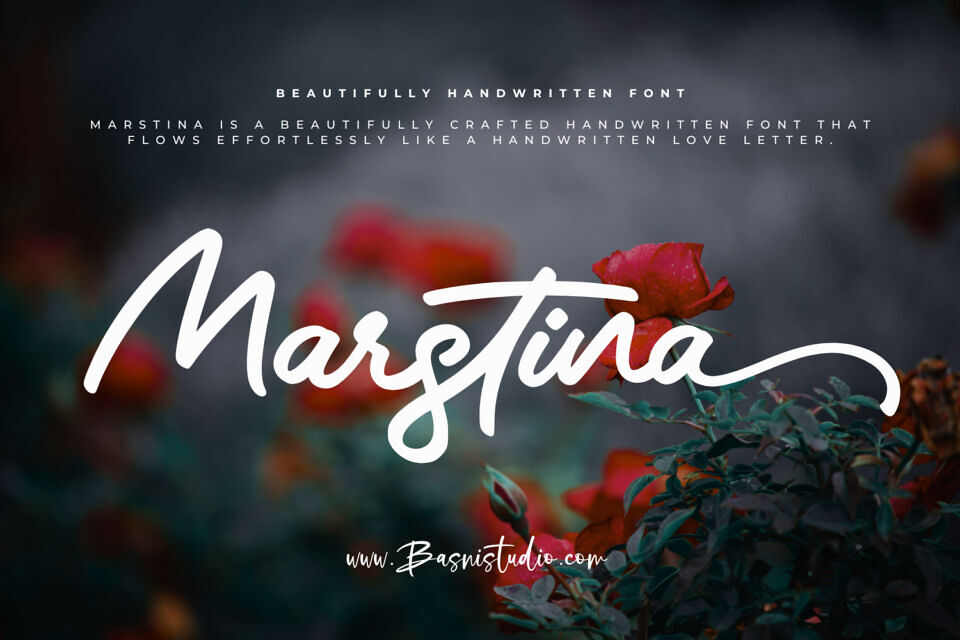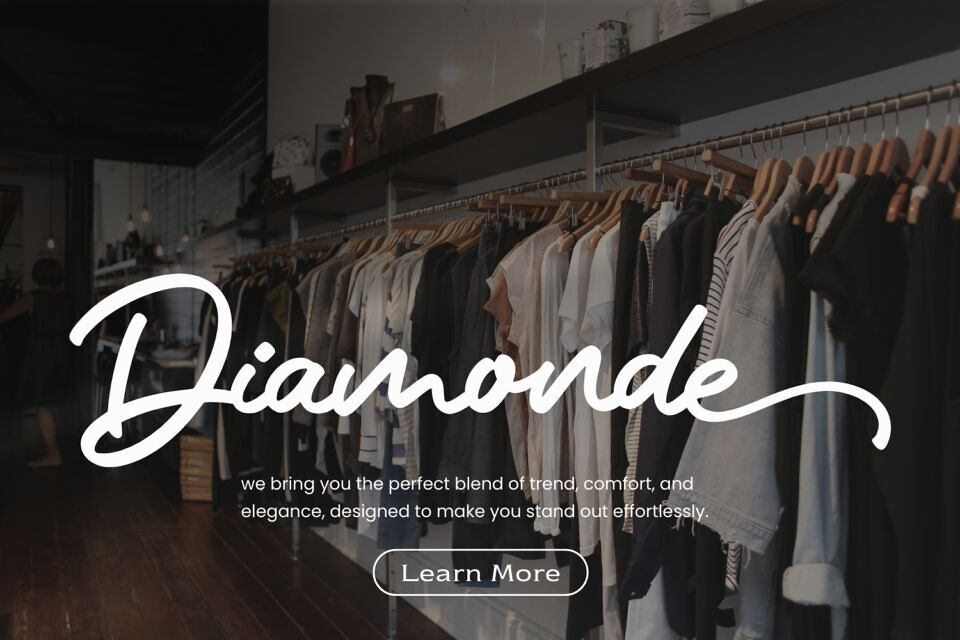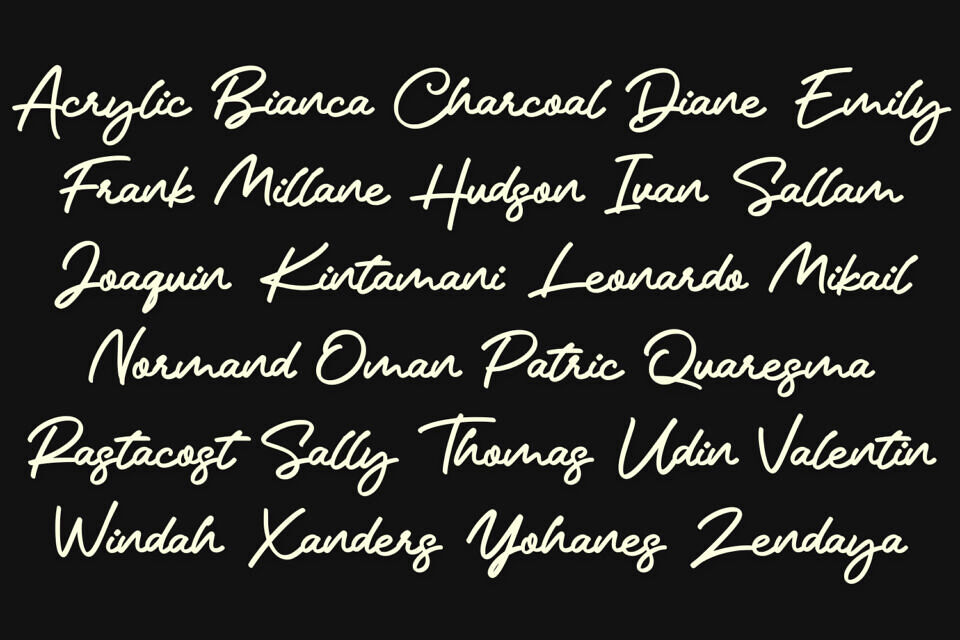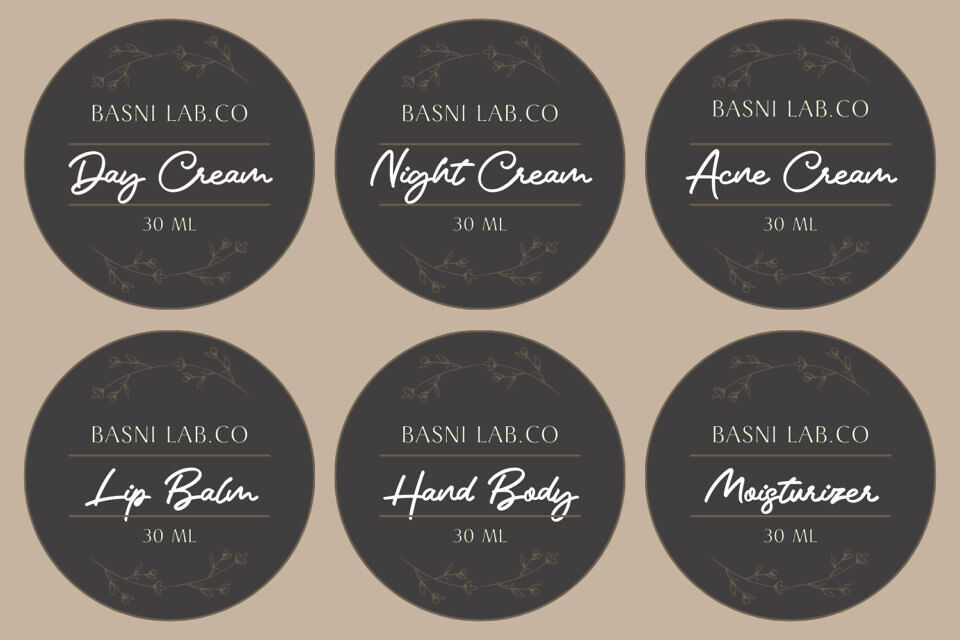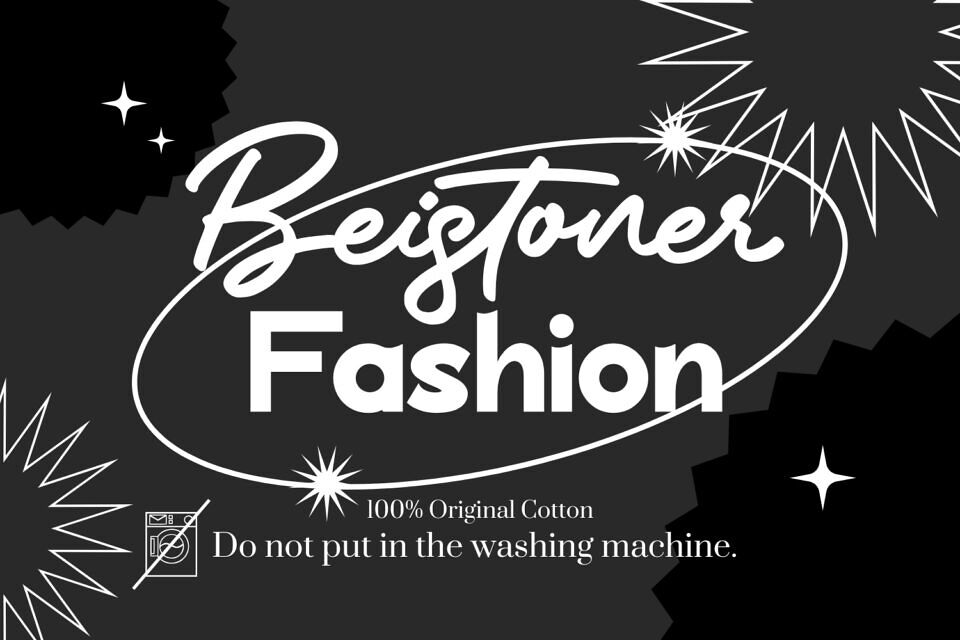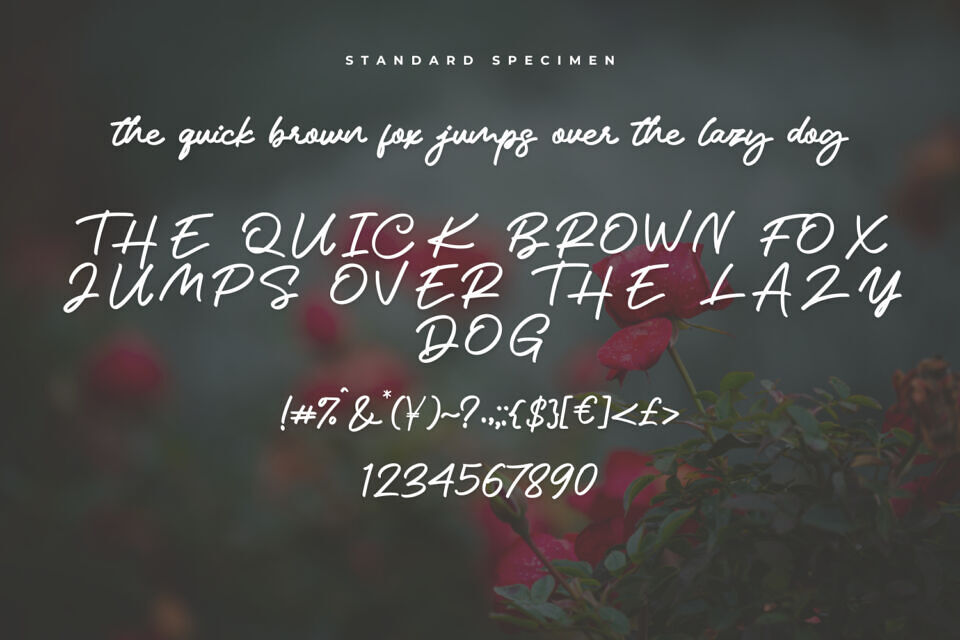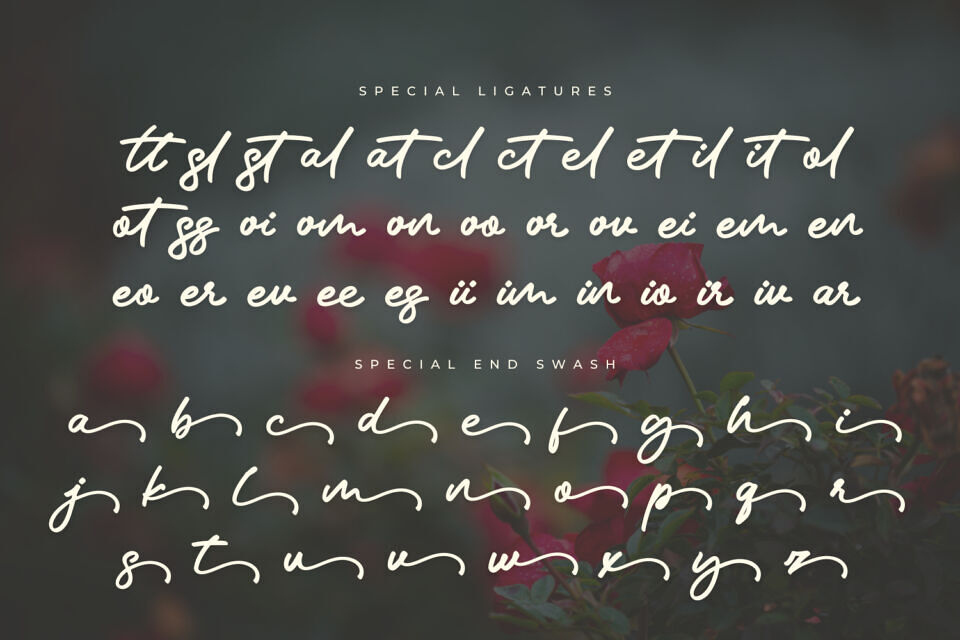
Looking for the perfect font to add a touch of romance, elegance, and charm to your designs? Meet Marstina Handwritten Font, a beautifully crafted Handwritten Font that flows effortlessly like a handwritten love letter.
Why You’ll Love It:
- Smooth & Elegant: Delicate strokes that create a timeless, romantic feel.
- Perfectly Versatile: Ideal for wedding invitations, branding, love notes, and more.
- Handwritten Beauty: Designed to capture the warmth and authenticity of real handwriting.
- Multilingual Support: Because love knows no boundaries!
Whether you’re designing for Valentine’s Day, weddings, or heartfelt messages, Marstina Handwritten Font adds an intimate and sophisticated touch to every project.